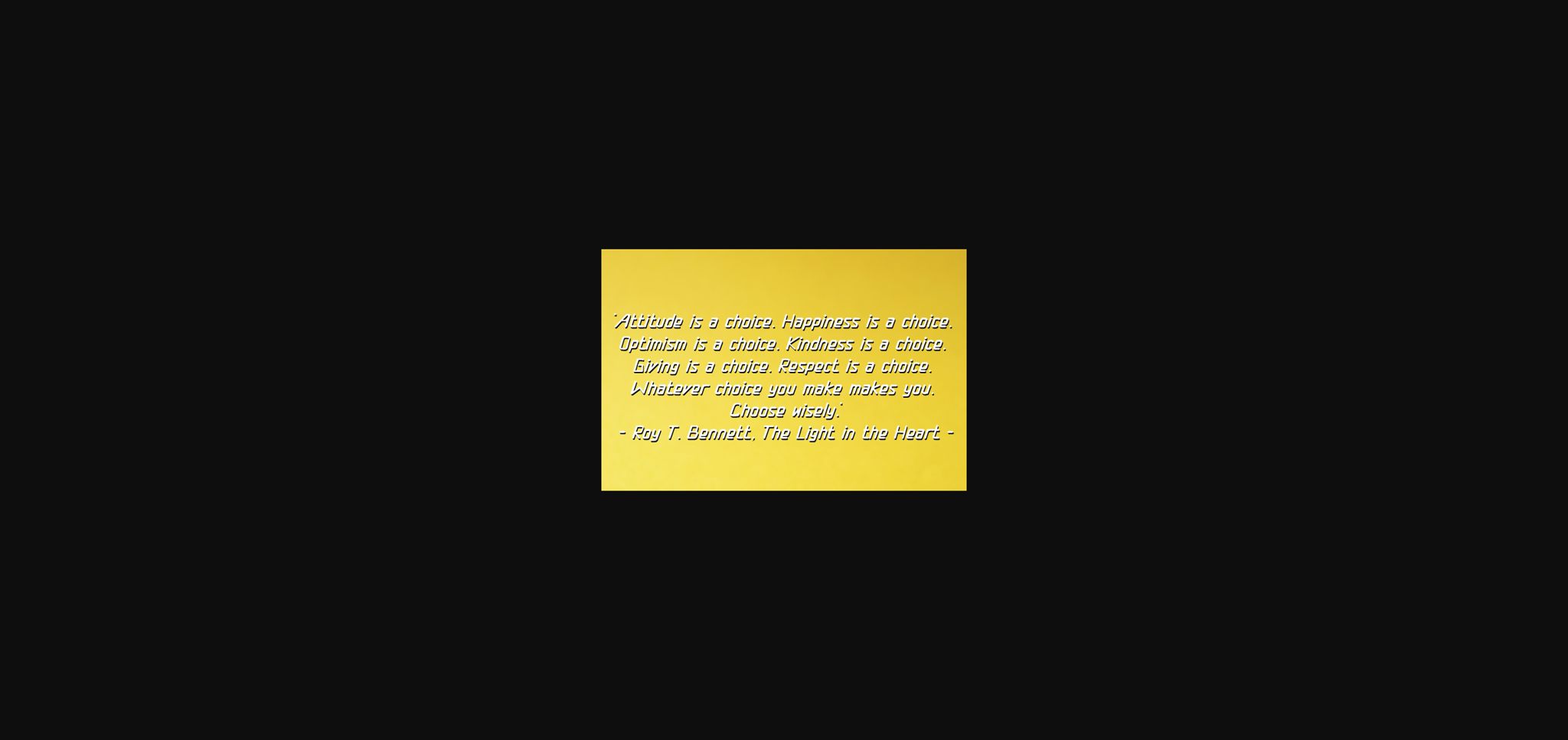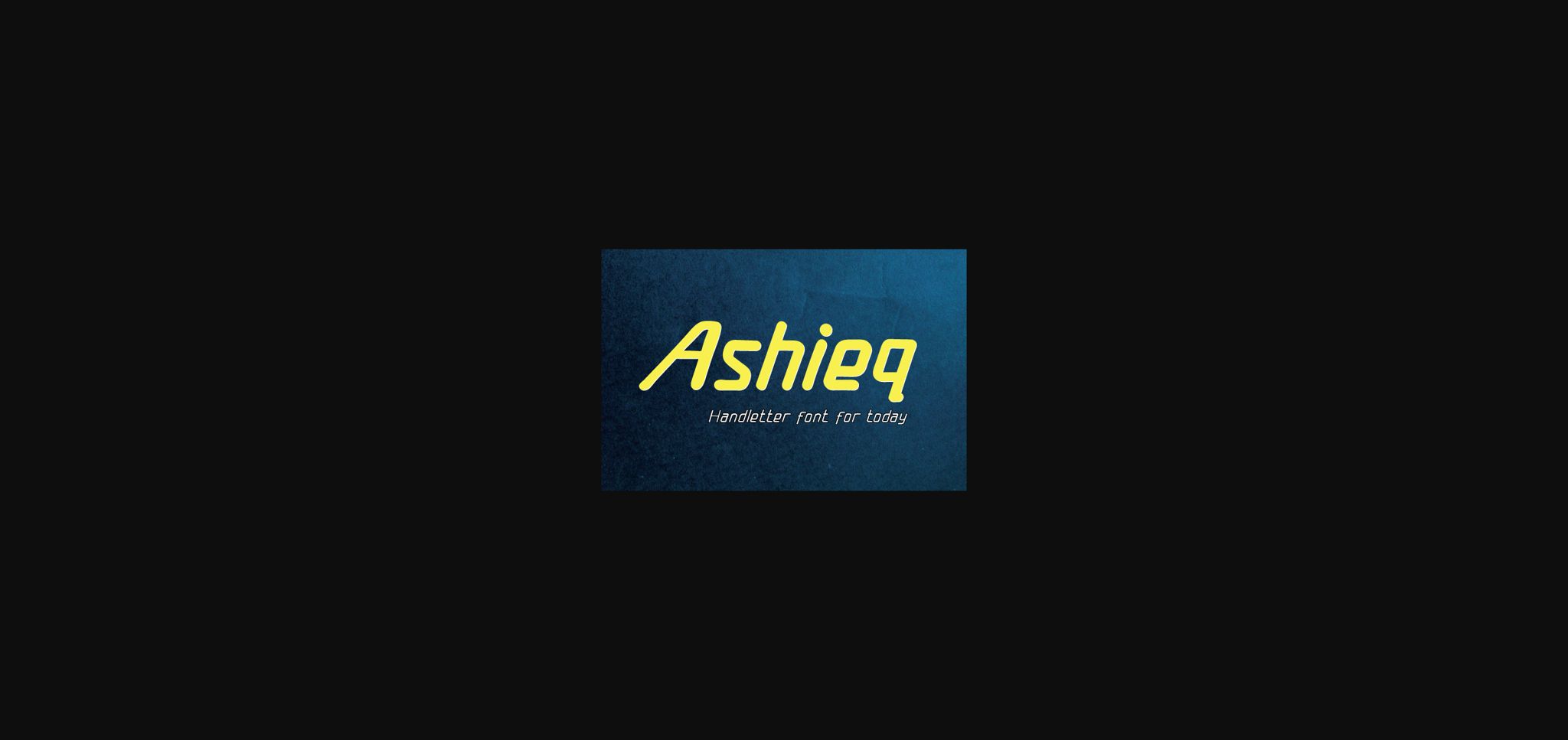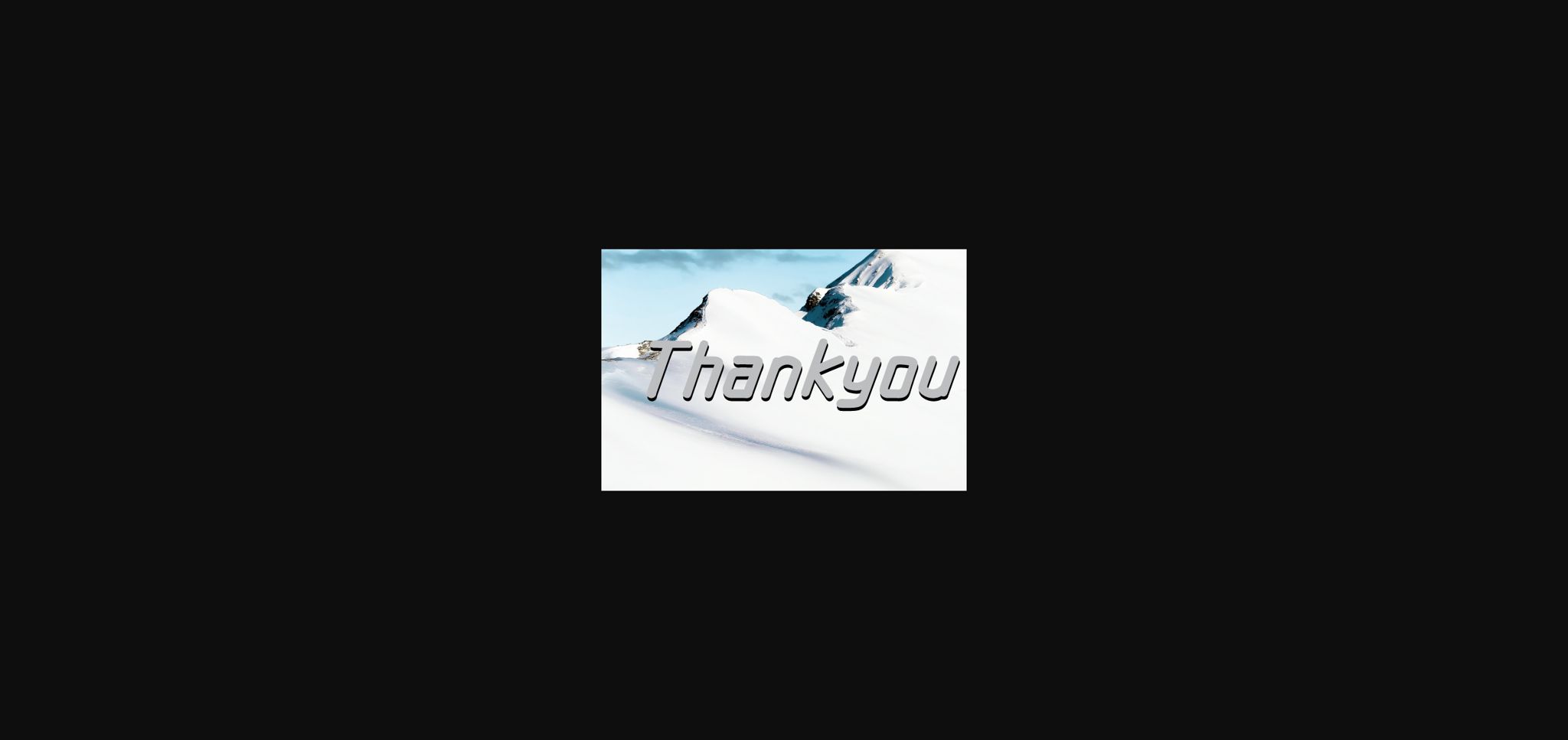
Ashieq Font
About Ashieq Font
Ashieq is a simple and neat sans serif font. It is the best choice for creating eye catching logos, branding and quotes.